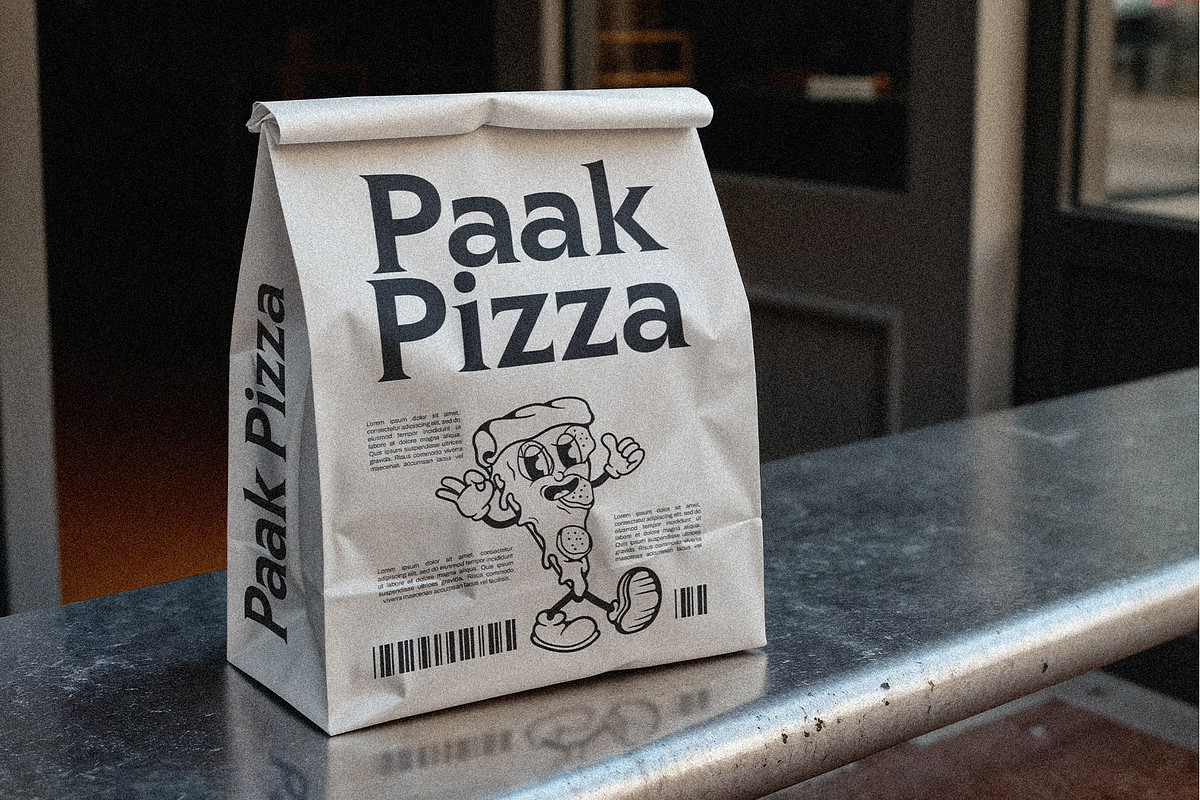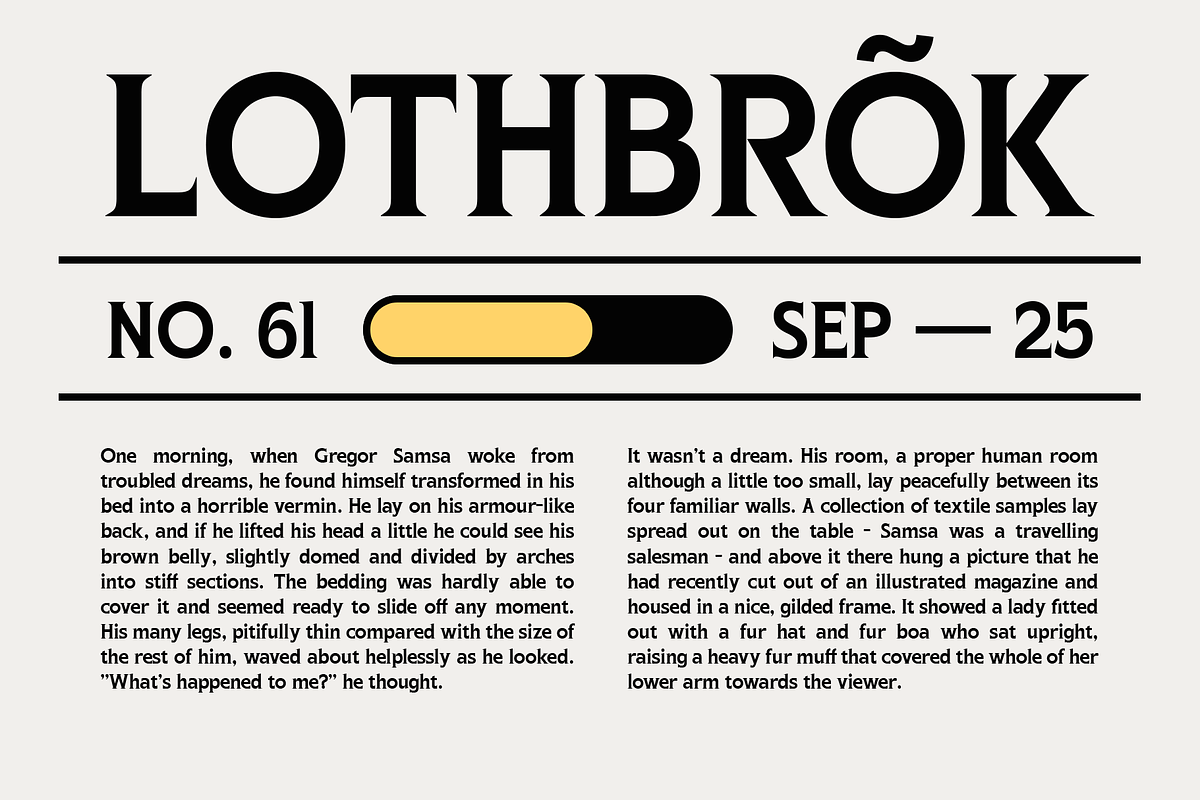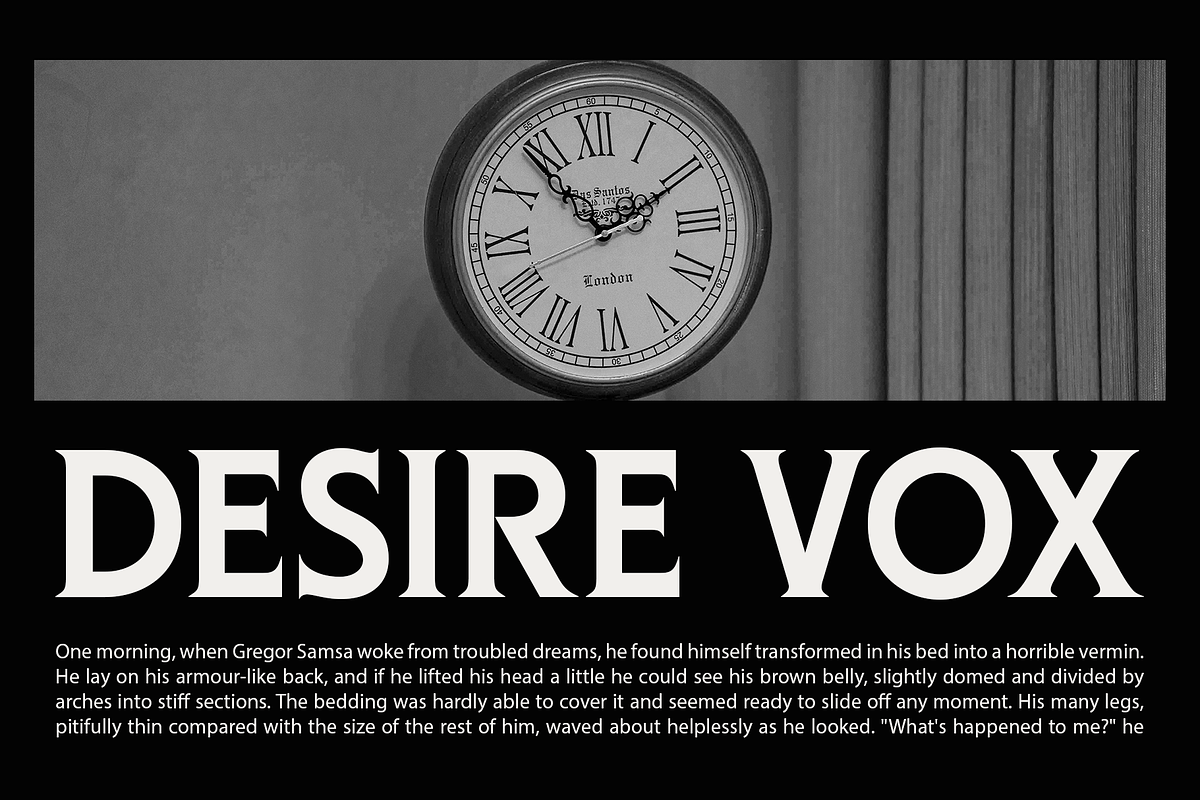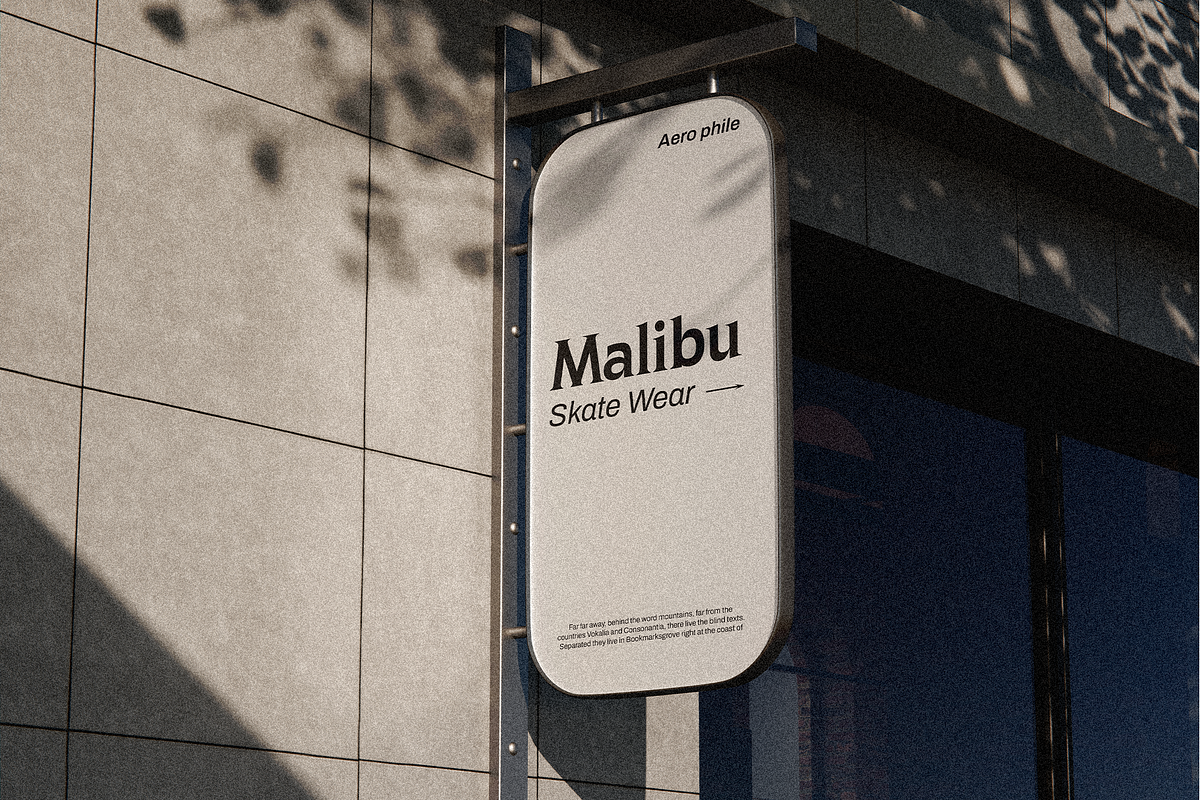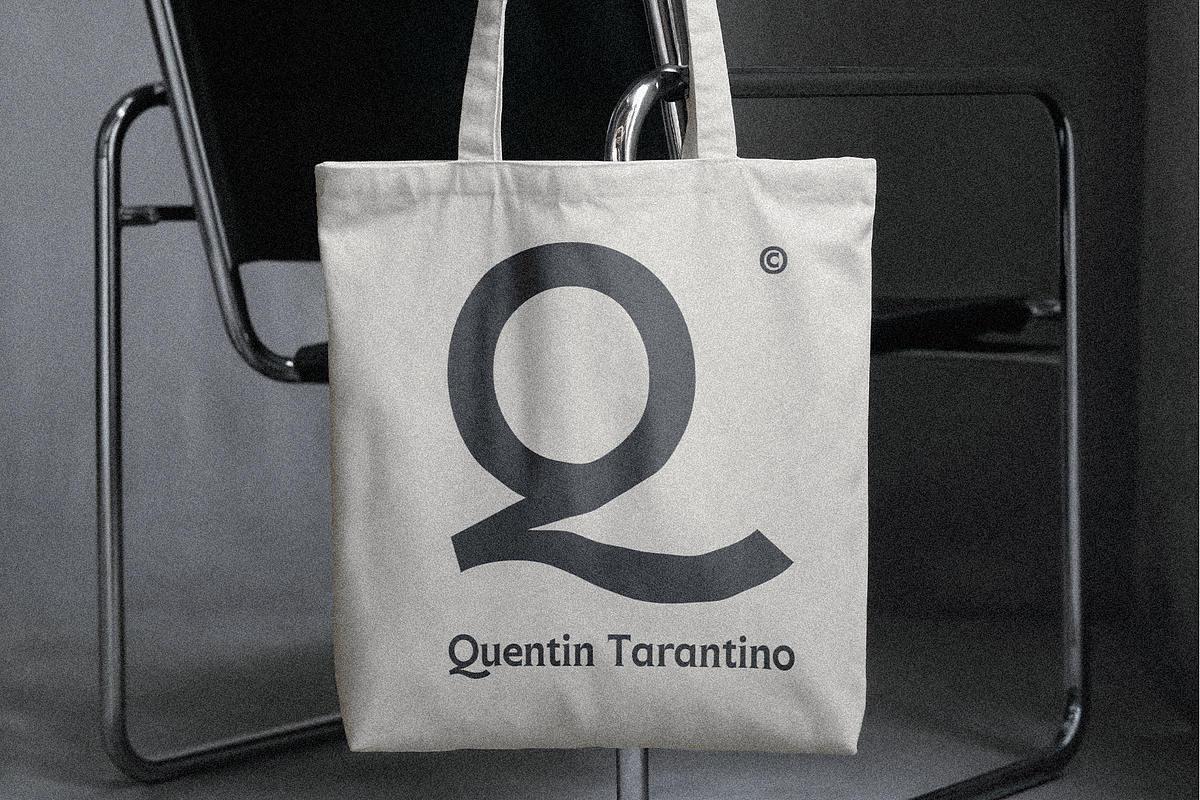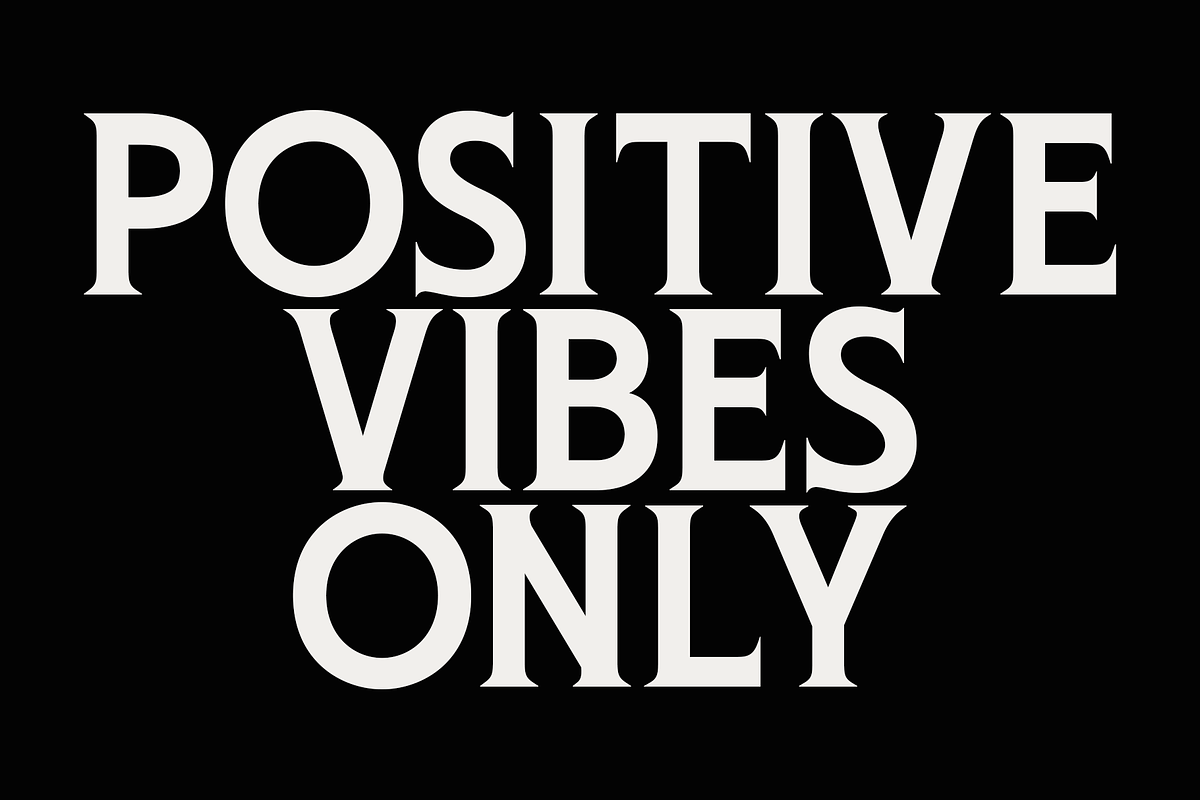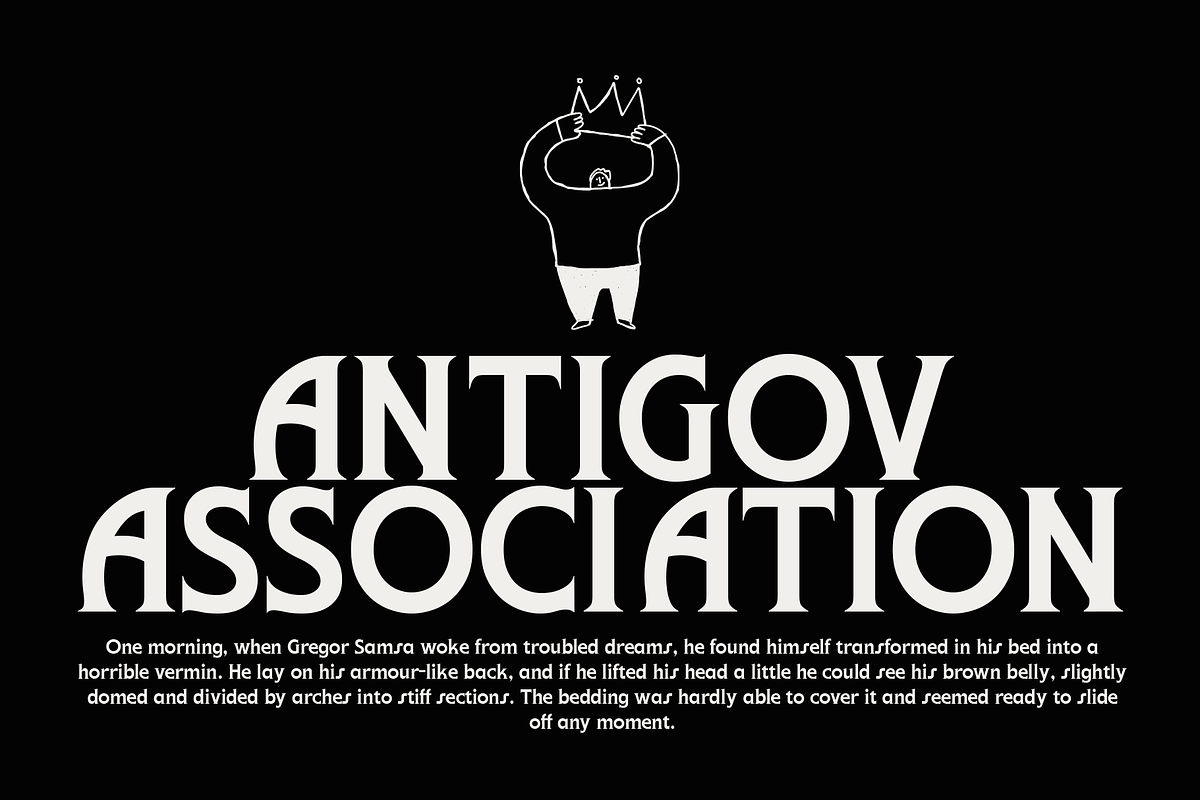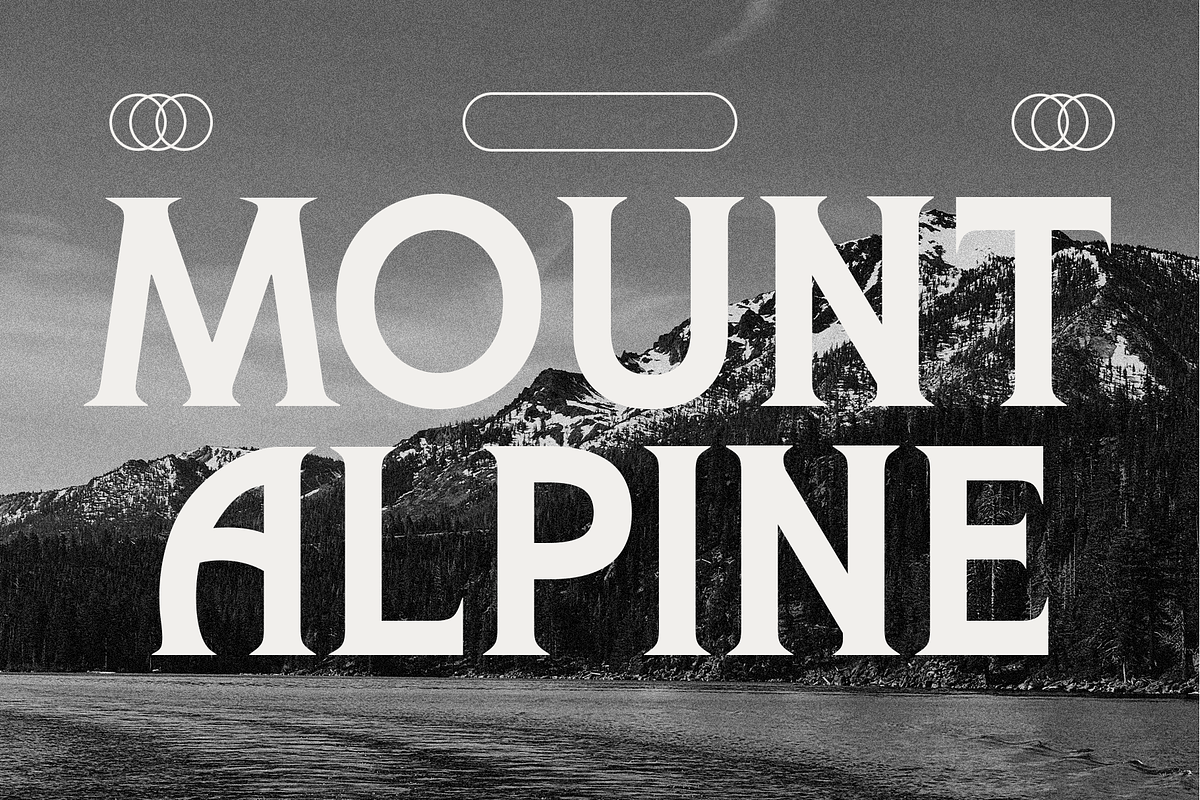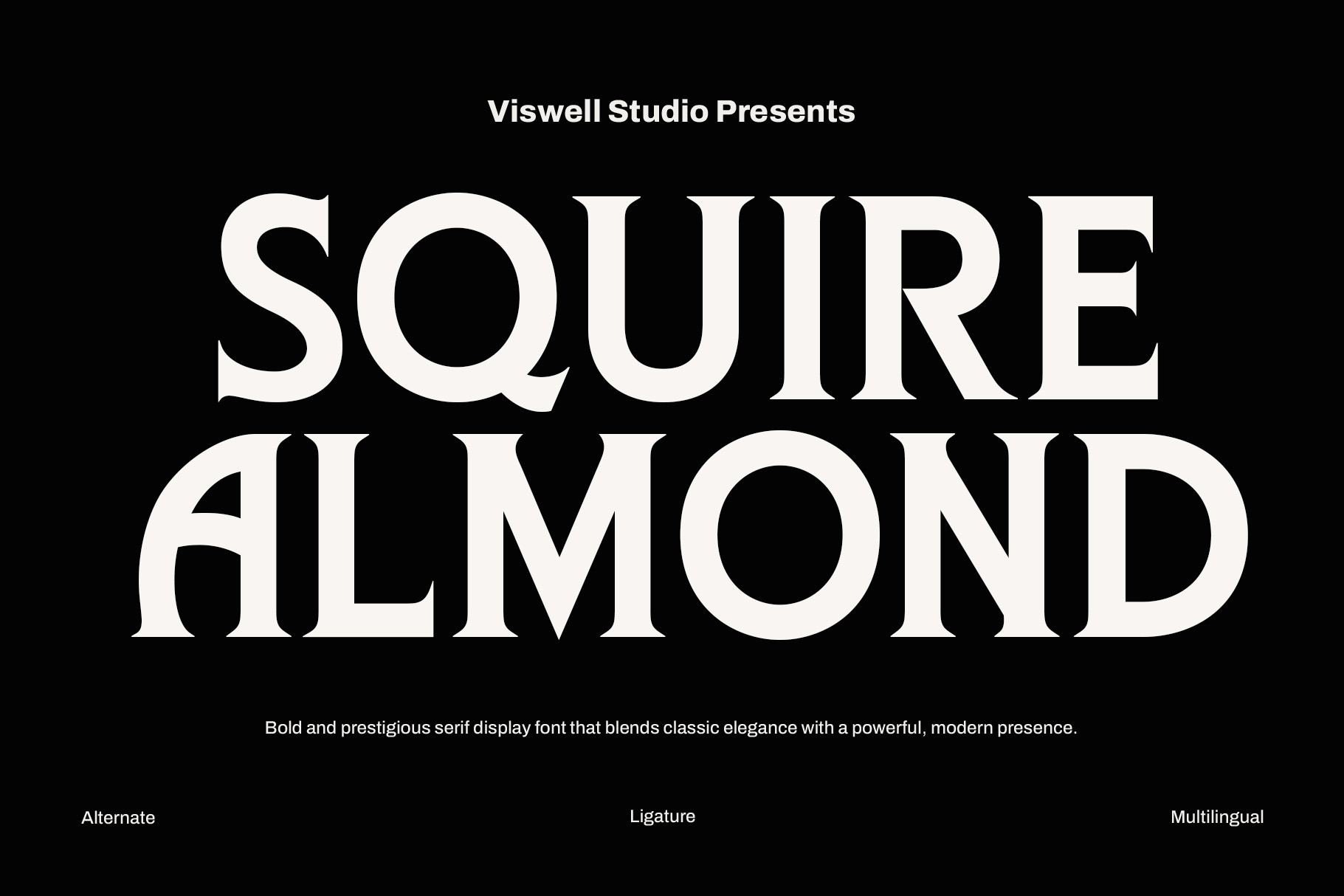
Squire Almond - Classy Font
Squire Almond is a bold and prestigious serif display font that fuses timeless elegance with a commanding modern edge. Designed by Viswell Studio, this typeface captures sophistication through refined contrast, sharp serifs, and powerful curves, perfect for luxury branding, editorial titles, logos, and packaging that demand confidence and class. With beautifully crafted alternates, elegant ligatures, and full multilingual support, Squire Almond stands out as a versatile and premium font choice for designers seeking to elevate their visuals with authority and charm. Make your next project unforgettable with the refined strength and modern elegance of Squire Almond.